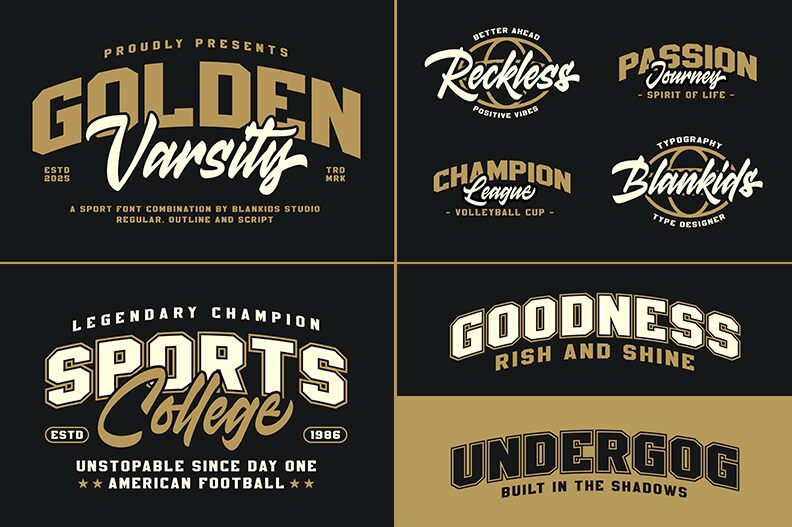
Golden Varsity Regular
Golden Varsity font by Blankids is a free bold old-school athletic display font. Built with stout, squared strokes and tight, uniform spacing, it hits that classic varsity vibe—blocky, confident, and ready for the spotlight. The sturdy rhythm and crisp right angles give headlines instant authority, while the slight notched cuts keep it from feeling generic.
Using Golden Varsity, you’ll get knockout results on team jerseys, sports logos, pep-rally posters, stadium signage, championship banners, and school merch. This free font holds up at large sizes and reads clean from a distance. For supporting text, pair it with a light, neutral grotesque to keep the focus on those strong caps.